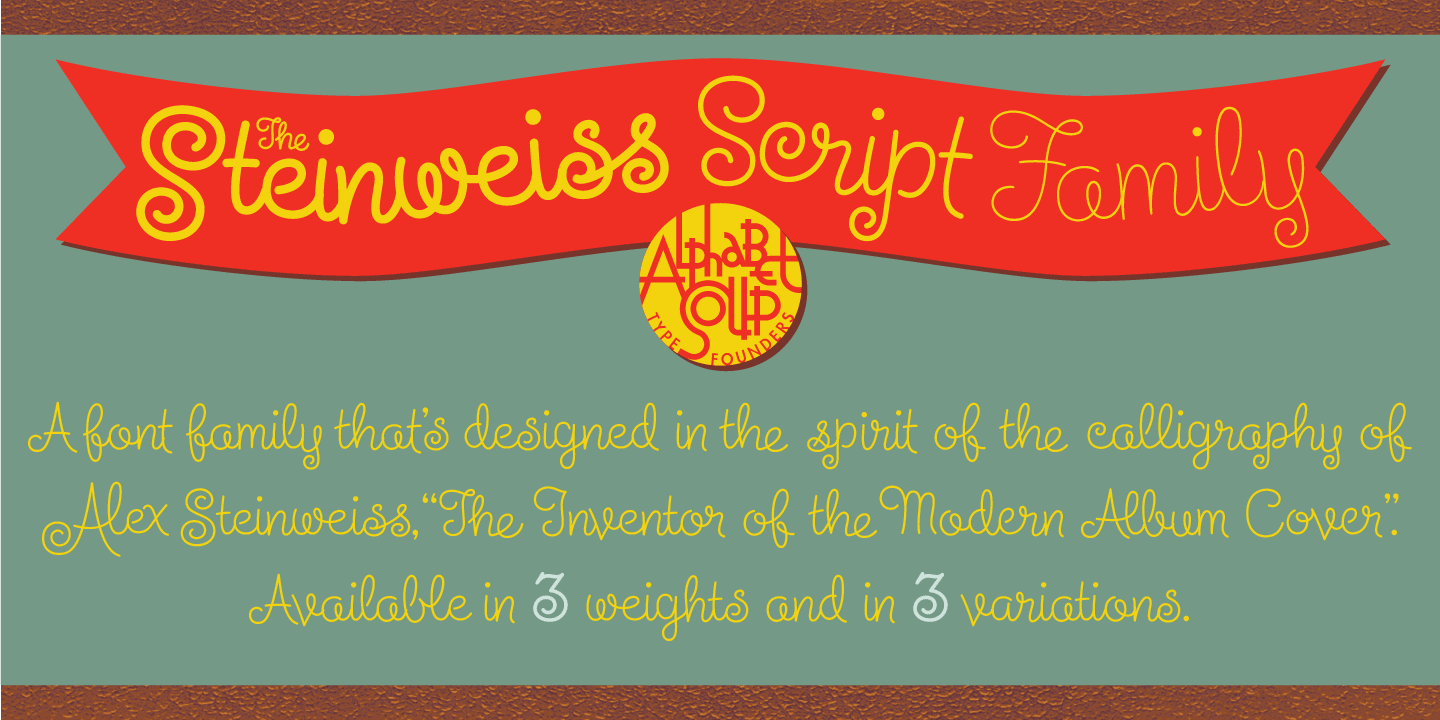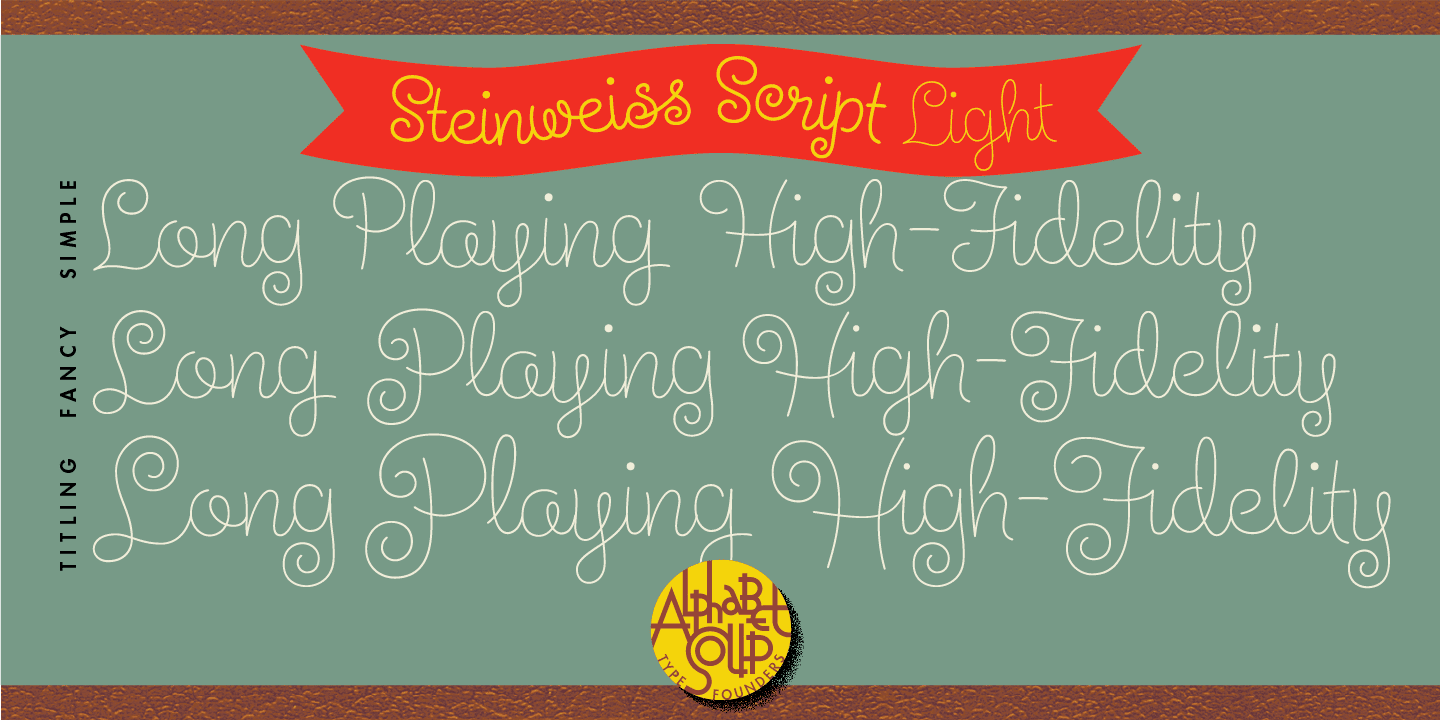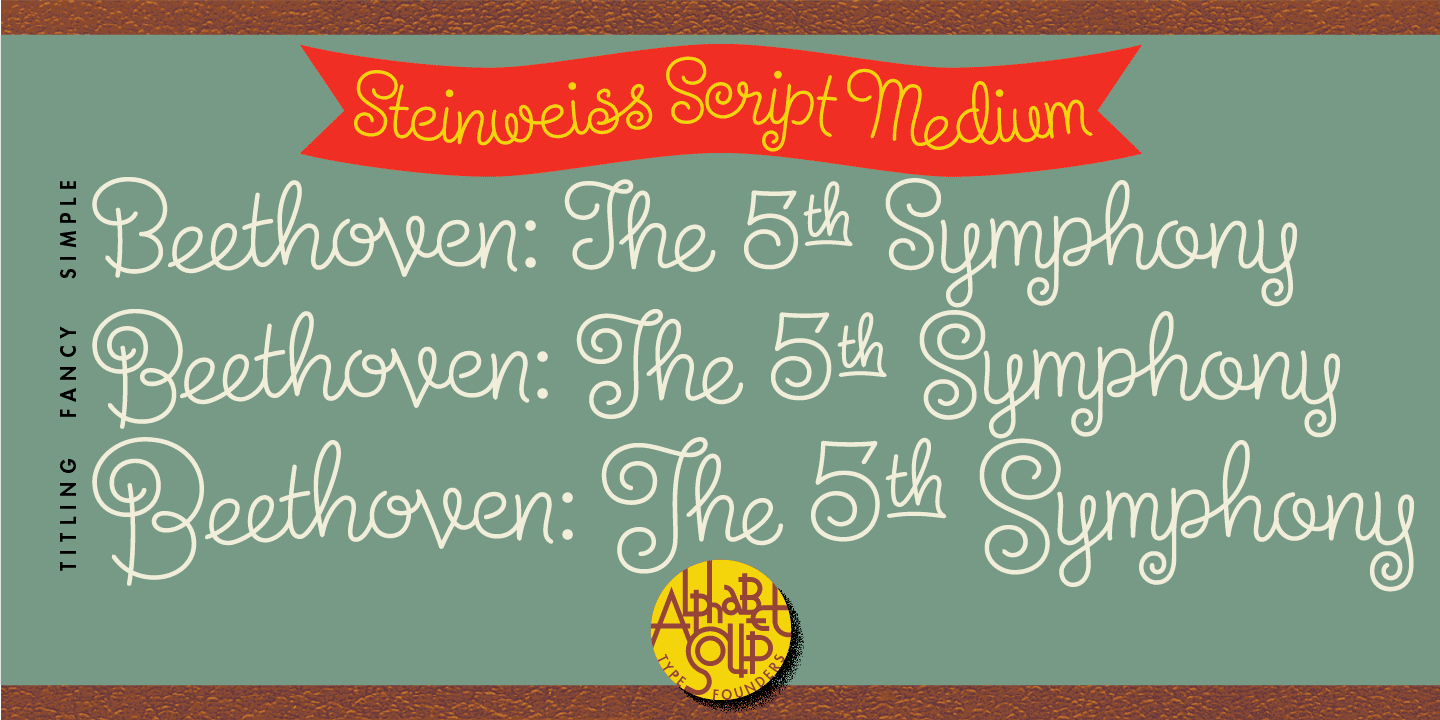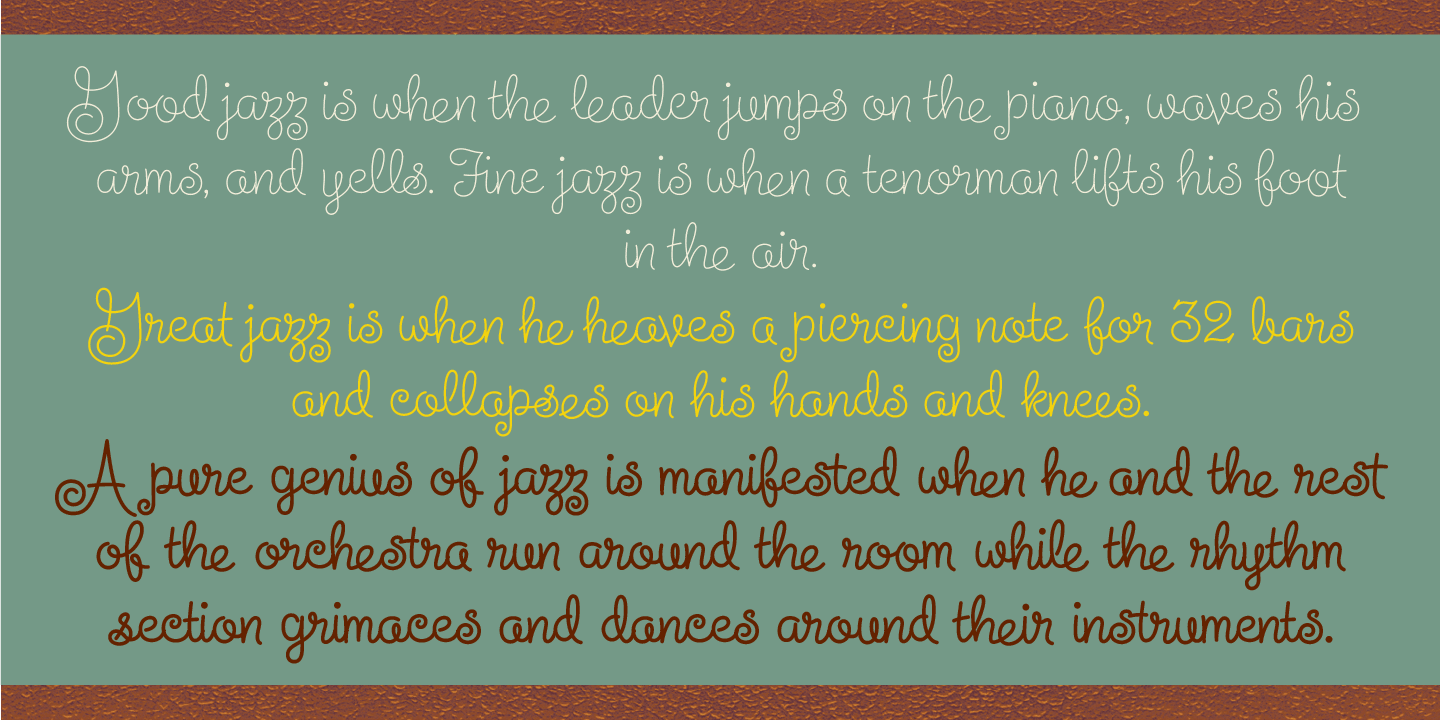
Steinweiss Script
Font Family by Alphabet Soup
Buy NowSteinweiss Script is a family of fonts in three weights: Light, Medium, and Bold. Additionally, within each weight there are three variations: Simple, Fancy, and Titling. These variations relate to the size/ratio of the caps to the lowercase, the complexity of those caps, and the size of the ascenders/descenders on the lowercase characters. These variations add usefulness to the font, making it accessible not just for headlines, but for longer passages of text as well.